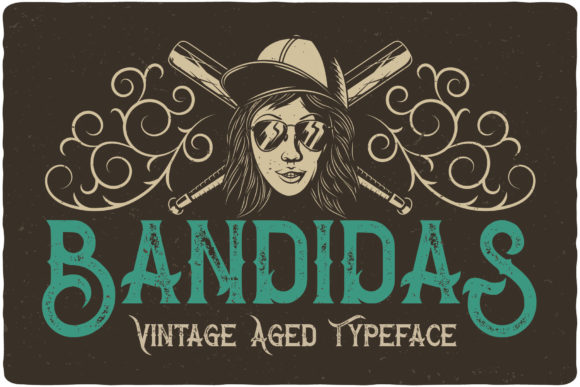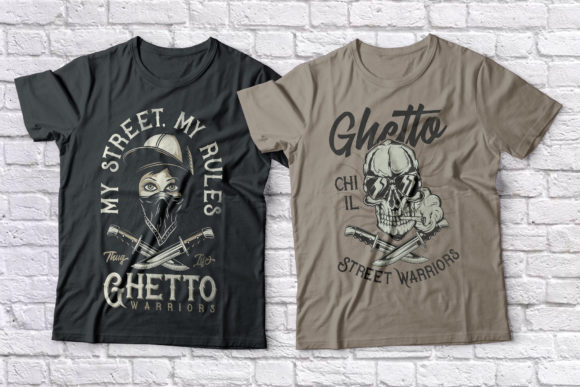
Bandidas Font
Bandidas is a cool, assertive and bold display font. It looks beautiful on a variety of designs requiring a personalized style, such as wedding invitations, thank you cards, weddings, greeting cards, logos and so on.